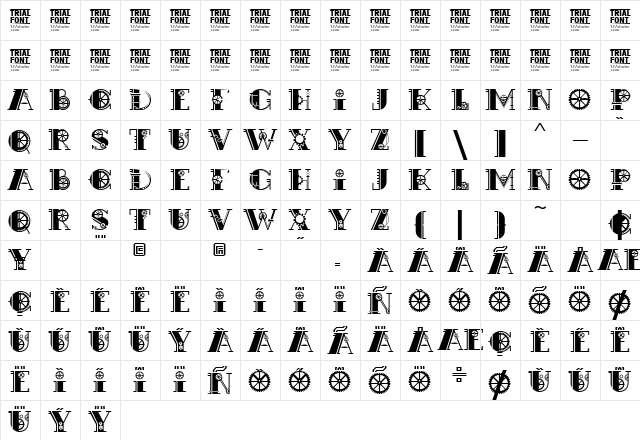
Complete Mechanical Demo Regular glyph index. Displaying only characters natively supported by Mechanical Demo Regular font.
Mechanical Demo is a composed and adaptable typeface that performs quietly and consistently across a wide range of design contexts.